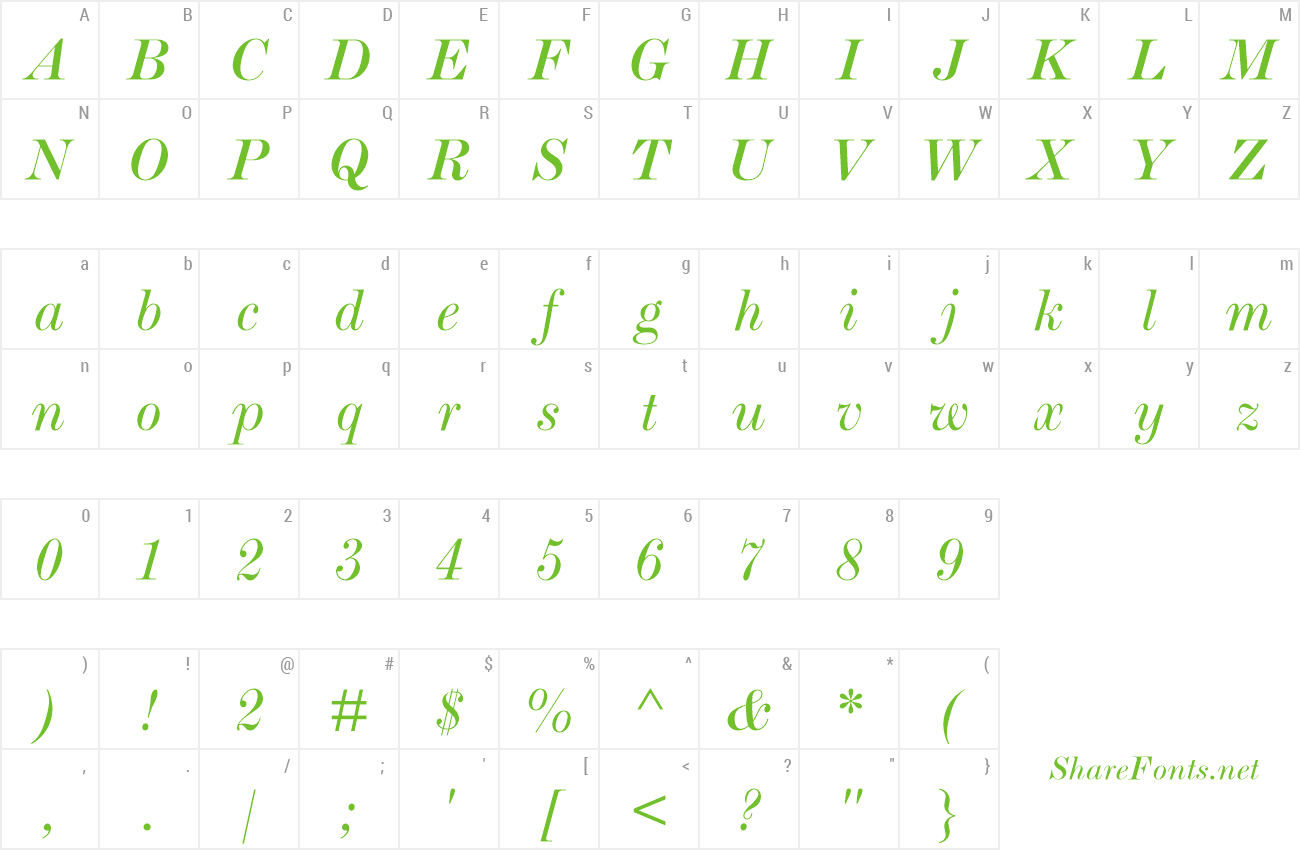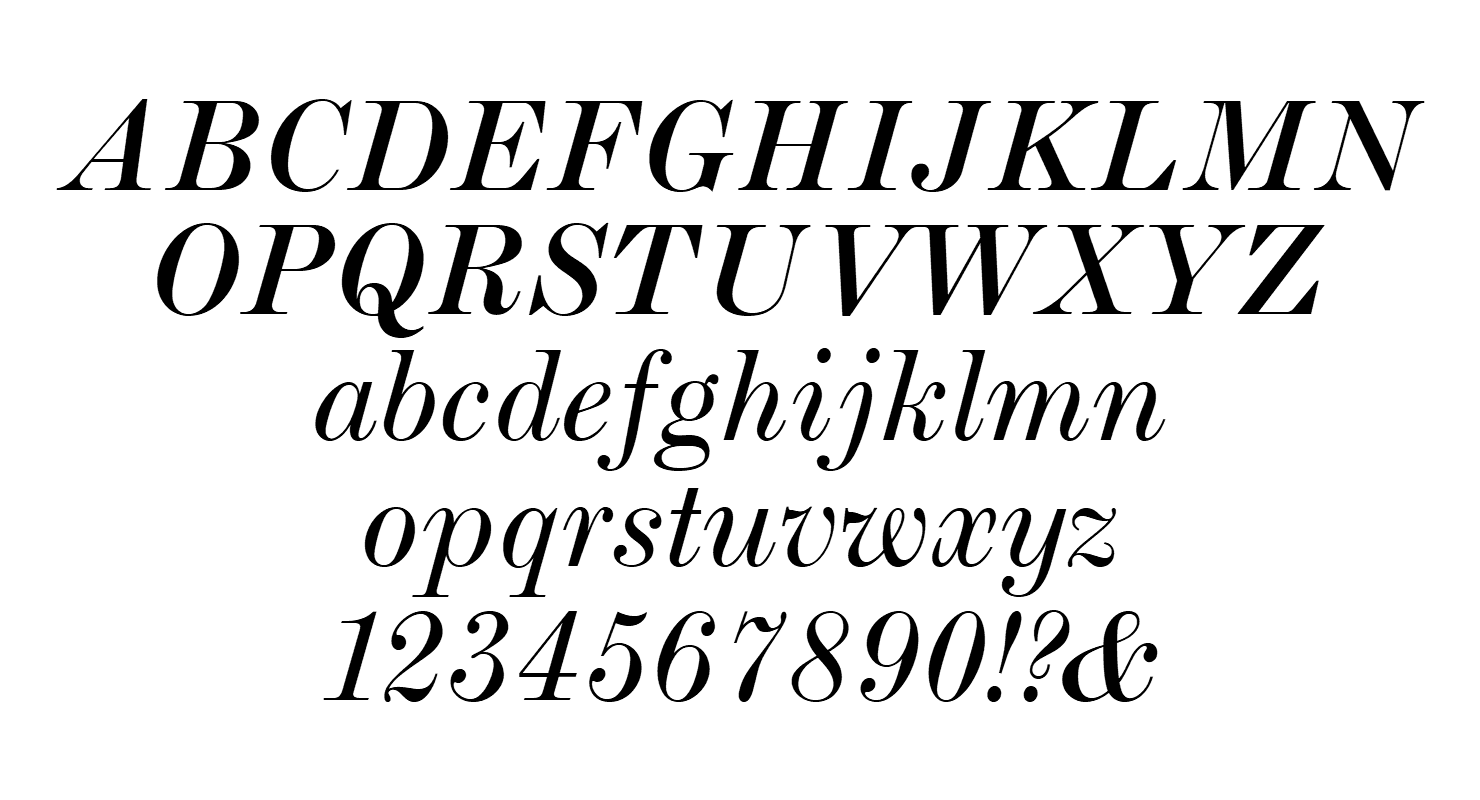
Scotch Roman Font
Scotch Roman Font - Web scotch roman designs were first cut by englishman richard austin and cast by the scottish typefounder alexander wilson. Web explore scotch text designed by neil summerour at adobe fonts. A serif typeface with 39 styles, available from adobe fonts. Web scotch roman is a class of typefaces popular in the early nineteenth century, particularly in the united states and to a.
A serif typeface with 39 styles, available from adobe fonts. Web scotch roman is a class of typefaces popular in the early nineteenth century, particularly in the united states and to a. Web explore scotch text designed by neil summerour at adobe fonts. Web scotch roman designs were first cut by englishman richard austin and cast by the scottish typefounder alexander wilson.
Web explore scotch text designed by neil summerour at adobe fonts. A serif typeface with 39 styles, available from adobe fonts. Web scotch roman designs were first cut by englishman richard austin and cast by the scottish typefounder alexander wilson. Web scotch roman is a class of typefaces popular in the early nineteenth century, particularly in the united states and to a.
Scotch Roman typefaces
Web scotch roman is a class of typefaces popular in the early nineteenth century, particularly in the united states and to a. Web scotch roman designs were first cut by englishman richard austin and cast by the scottish typefounder alexander wilson. A serif typeface with 39 styles, available from adobe fonts. Web explore scotch text designed by neil summerour at.
Web explore scotch text designed by neil summerour at adobe fonts. A serif typeface with 39 styles, available from adobe fonts. Web scotch roman designs were first cut by englishman richard austin and cast by the scottish typefounder alexander wilson. Web scotch roman is a class of typefaces popular in the early nineteenth century, particularly in the united states and.
Web explore scotch text designed by neil summerour at adobe fonts. A serif typeface with 39 styles, available from adobe fonts. Web scotch roman is a class of typefaces popular in the early nineteenth century, particularly in the united states and to a. Web scotch roman designs were first cut by englishman richard austin and cast by the scottish typefounder.
A serif typeface with 39 styles, available from adobe fonts. Web scotch roman is a class of typefaces popular in the early nineteenth century, particularly in the united states and to a. Web explore scotch text designed by neil summerour at adobe fonts. Web scotch roman designs were first cut by englishman richard austin and cast by the scottish typefounder.
A serif typeface with 39 styles, available from adobe fonts. Web scotch roman designs were first cut by englishman richard austin and cast by the scottish typefounder alexander wilson. Web explore scotch text designed by neil summerour at adobe fonts. Web scotch roman is a class of typefaces popular in the early nineteenth century, particularly in the united states and.
Web scotch roman designs were first cut by englishman richard austin and cast by the scottish typefounder alexander wilson. Web explore scotch text designed by neil summerour at adobe fonts. Web scotch roman is a class of typefaces popular in the early nineteenth century, particularly in the united states and to a. A serif typeface with 39 styles, available from.
Scotch Roman DAYLIGHT FONTS
Web scotch roman designs were first cut by englishman richard austin and cast by the scottish typefounder alexander wilson. Web scotch roman is a class of typefaces popular in the early nineteenth century, particularly in the united states and to a. Web explore scotch text designed by neil summerour at adobe fonts. A serif typeface with 39 styles, available from.
Scotch Roman
Web explore scotch text designed by neil summerour at adobe fonts. Web scotch roman is a class of typefaces popular in the early nineteenth century, particularly in the united states and to a. Web scotch roman designs were first cut by englishman richard austin and cast by the scottish typefounder alexander wilson. A serif typeface with 39 styles, available from.
Download free Scotch Roman MT Regular font
Web explore scotch text designed by neil summerour at adobe fonts. Web scotch roman is a class of typefaces popular in the early nineteenth century, particularly in the united states and to a. A serif typeface with 39 styles, available from adobe fonts. Web scotch roman designs were first cut by englishman richard austin and cast by the scottish typefounder.
Scotch Roman™ Font Download the Scotch Roman™ Font Today
A serif typeface with 39 styles, available from adobe fonts. Web scotch roman designs were first cut by englishman richard austin and cast by the scottish typefounder alexander wilson. Web scotch roman is a class of typefaces popular in the early nineteenth century, particularly in the united states and to a. Web explore scotch text designed by neil summerour at.
Web Explore Scotch Text Designed By Neil Summerour At Adobe Fonts.
Web scotch roman designs were first cut by englishman richard austin and cast by the scottish typefounder alexander wilson. Web scotch roman is a class of typefaces popular in the early nineteenth century, particularly in the united states and to a. A serif typeface with 39 styles, available from adobe fonts.